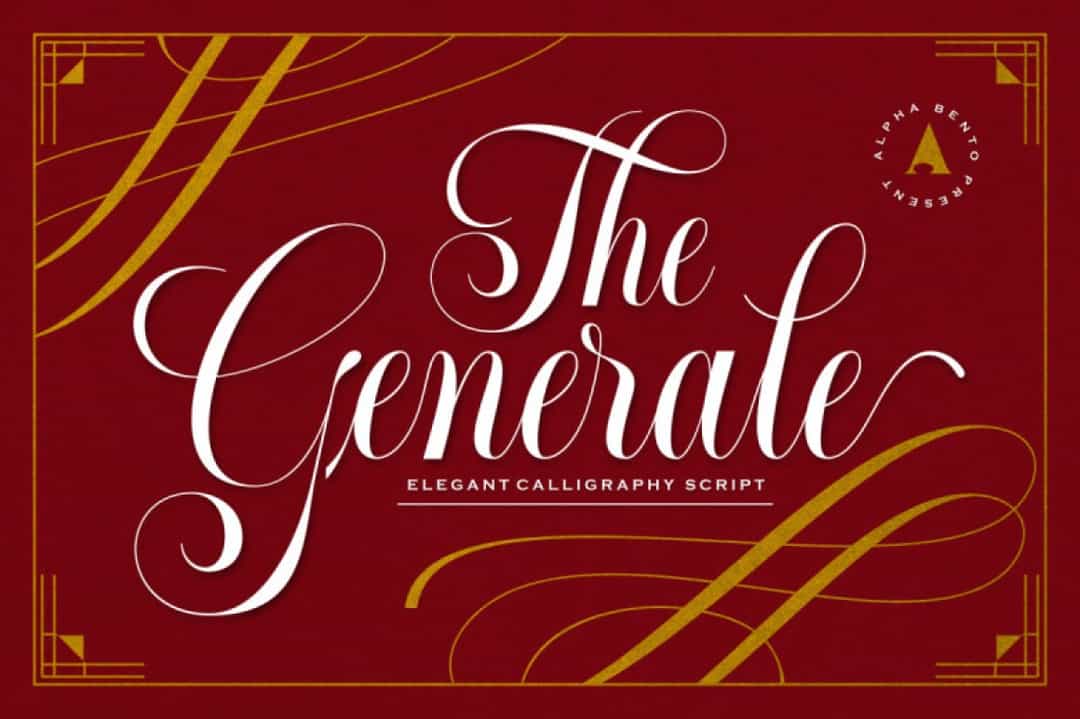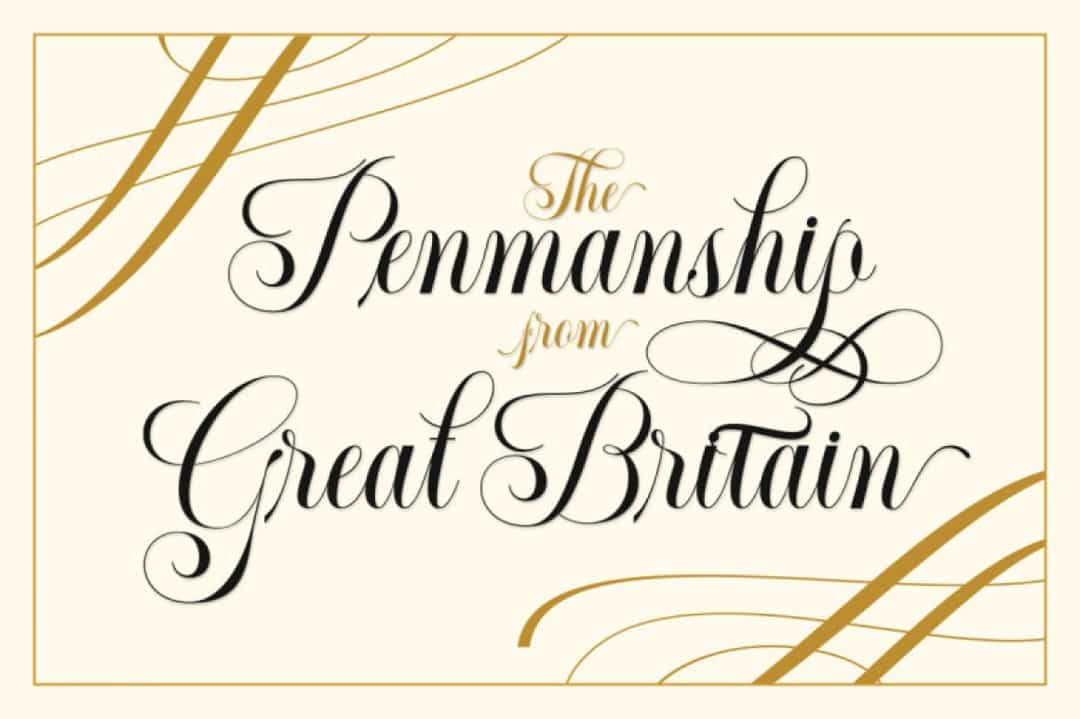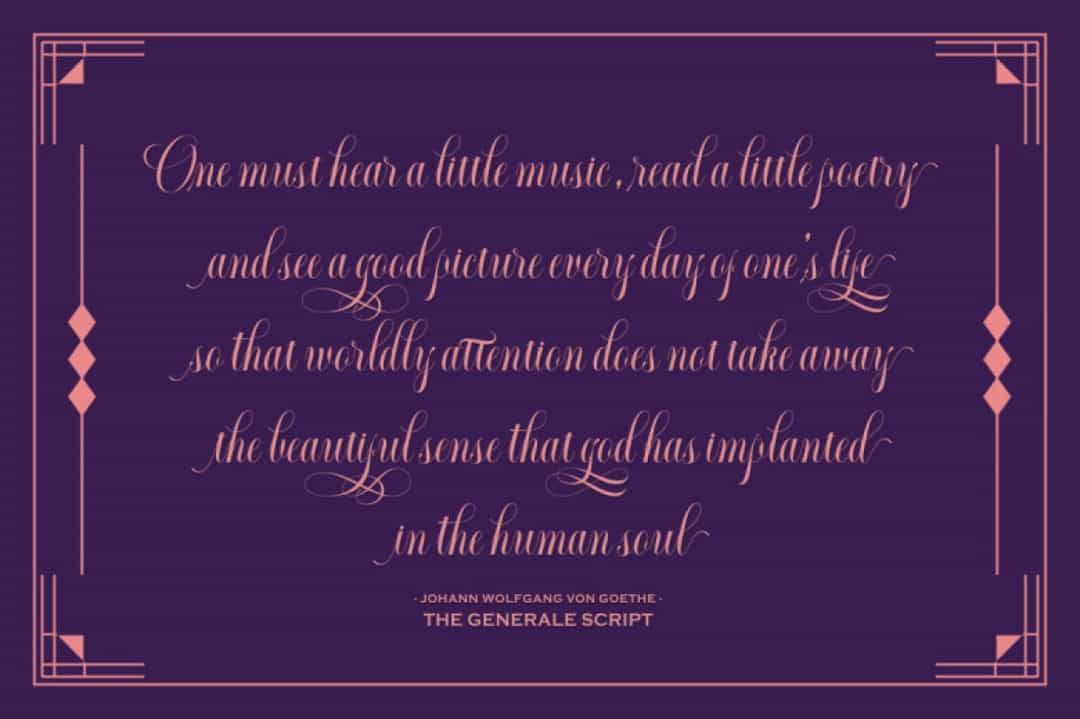
Generale is an elegant calligraphic script font with modern style and sophisticated design, drawing inspiration from classic, timeless calligraphy. PUA encoded, it allows easy access to its gorgeous characters and swashes!